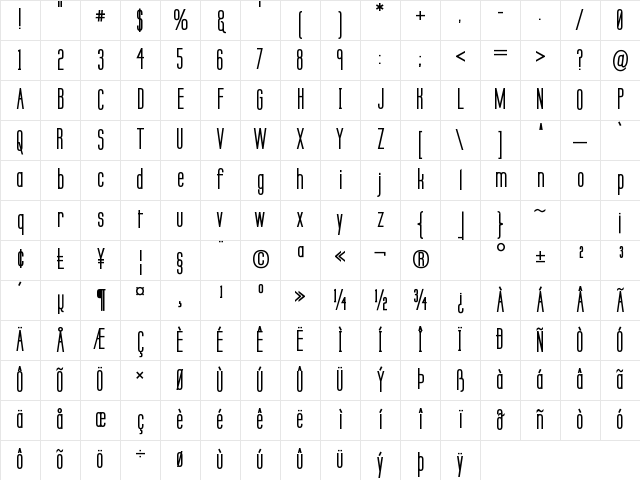
Labtop Secundo Bold
Design Context for Labtop Secundo
Labtop Secundo is a composed and adaptable typeface that performs quietly and consistently across a wide range of design contexts. Its bold stroke weight gives it real presence on the page.